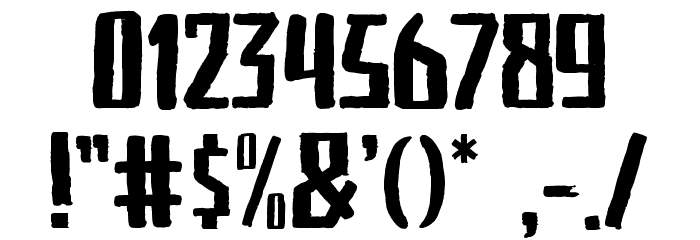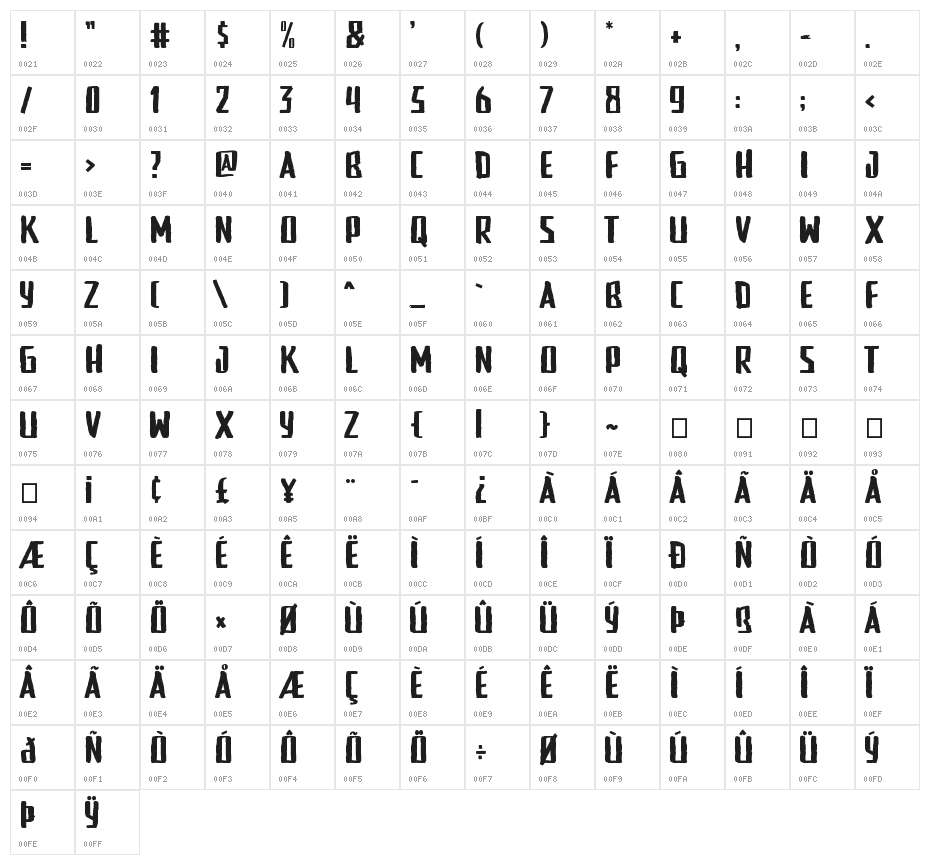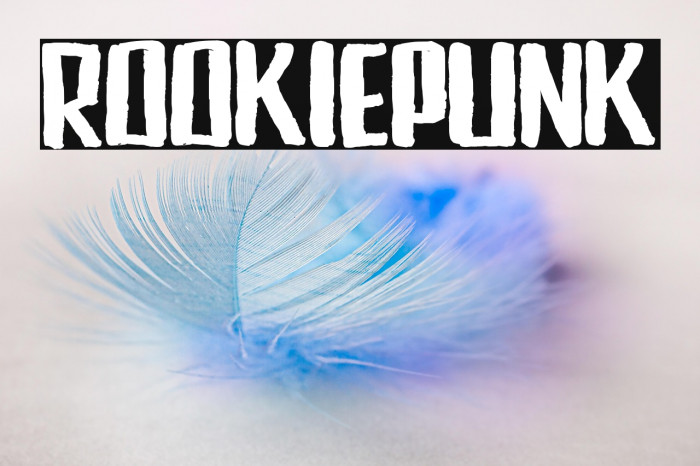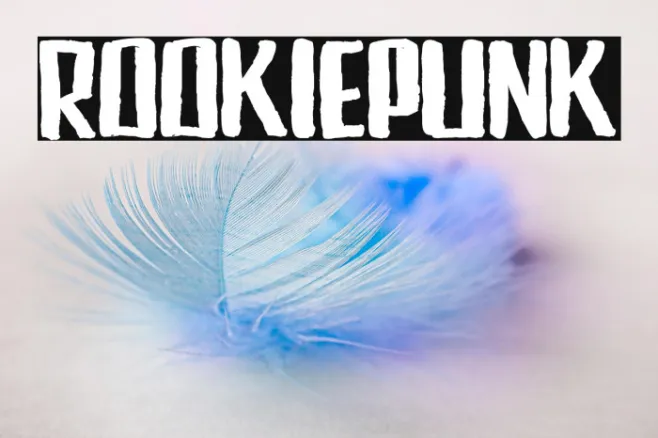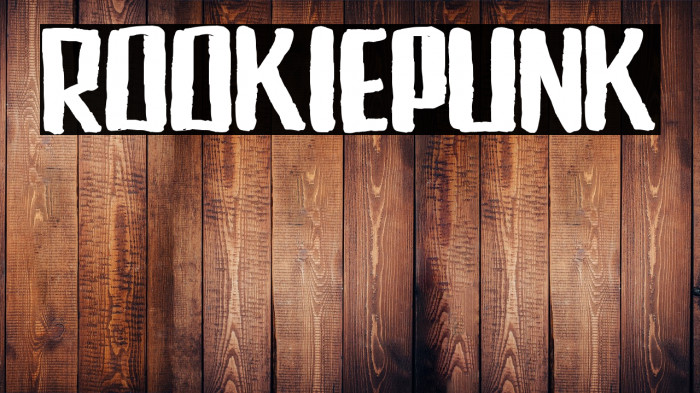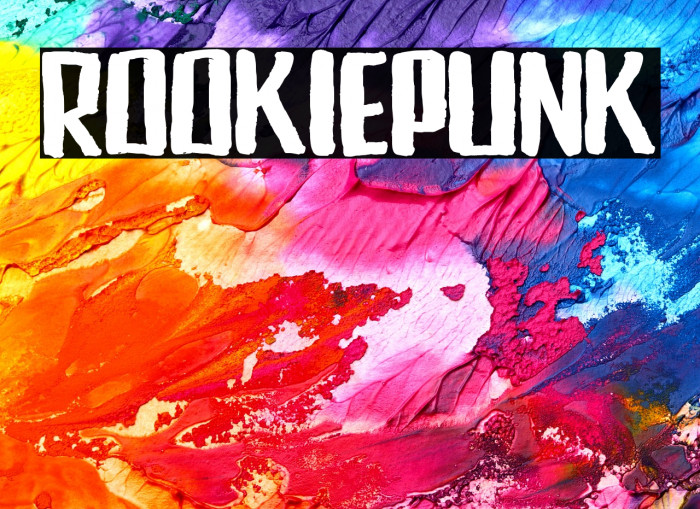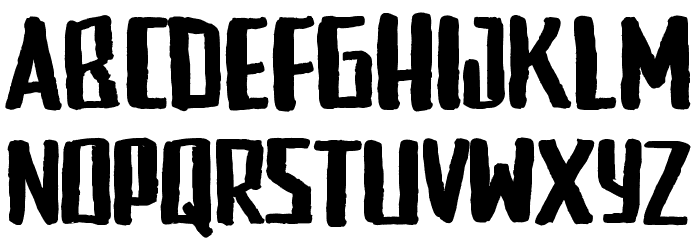
RookiePunk Font
RookiePunk Description
This font features a bold and rugged style with a hand-drawn appearance, characterized by uneven edges and a slightly distressed look. The uppercase and lowercase letters maintain a consistent height, giving it a uniform appearance despite its rough texture. The numbers and special characters follow the same stylistic approach, ensuring coherence across all elements. This font exudes a rebellious and edgy vibe, making it ideal for projects that require a strong, impactful visual presence. Its unique style is reminiscent of street art or punk aesthetics, adding a touch of raw energy to any design.
| Proposed Projects | Ideal for album covers, posters, streetwear branding, and edgy graphic designs. |